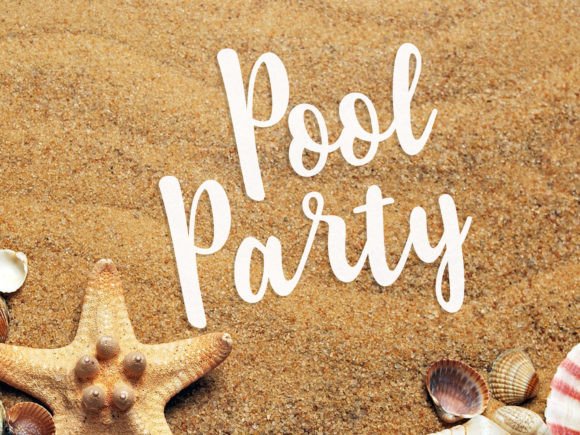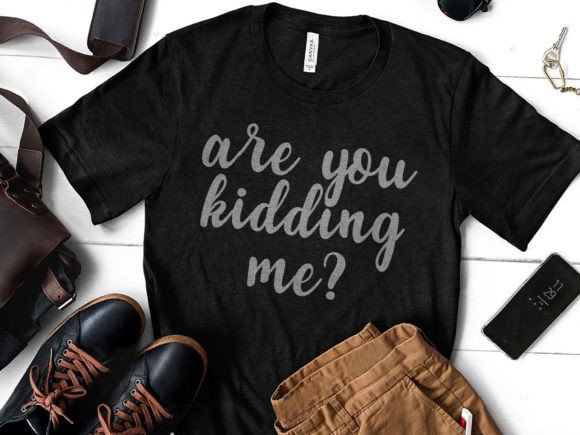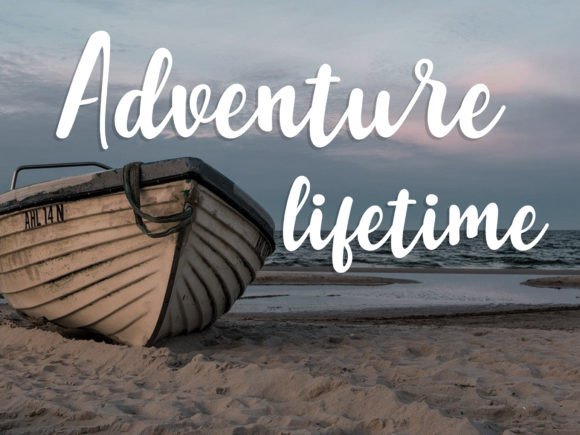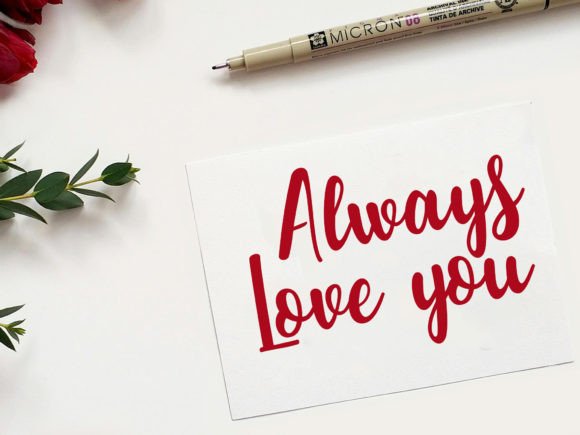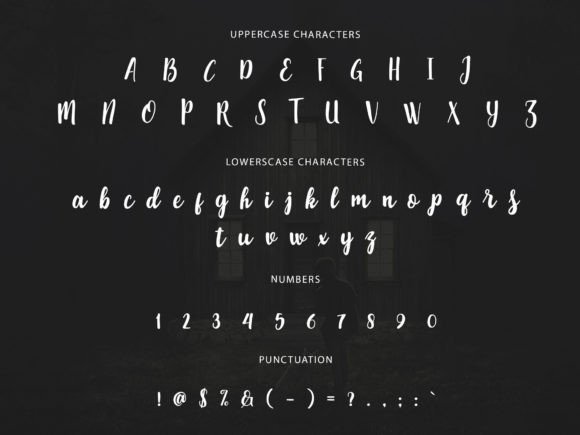
The Moonlit Charm of Evabeta Font: A Designer’s Delight
I’ll never forget the late nights spent working on a luxury event branding project, searching for the perfect font to capture the essence of an elegant evening under the stars. My client wanted a design that exuded sophistication and intimacy, but I was struggling to find a typeface that fit the bill. That’s when I stumbled upon Evabeta Font, and it was love at first sight ✨. In this article, I’ll share my experience with Evabeta, its unique features, and how to make the most of this stunning font in your designs.
A Personal Review of Evabeta Font
- ✨ Fluid, organic strokes that evoke the elegance of personalized handwriting
- ✅ Delicate yet bold lines that create a sense of depth and intrigue
- 💫 Perfect for luxurious evening events, upscale branding, and intimate, nocturnal-themed designs
- 🎨 Highly versatile and adaptable to various design contexts
While Evabeta is an exceptional font, there are a few things to keep in mind ⚠️:
- 🤔 Some characters may appear a bit condensed, which can affect readability at smaller font sizes
- ⚠️ Limited availability of extended language support
The Backstory of Evabeta Font
Evabeta Font was crafted with the intention of capturing the essence of a moonlit night. Its designer aimed to create a typeface that would evoke the elegance and intimacy of a handwritten script, while still maintaining a sense of sophistication and luxury. The result is a font that shines bright in the world of typography 💫.
| What makes Evabeta Font unique? | Evabeta’s fluid, organic strokes and delicate yet bold lines create a sense of depth and intrigue, making it perfect for luxurious and intimate designs. |
| Is Evabeta suitable for body text? | While Evabeta is primarily designed for display purposes, it can be used for body text in certain contexts. However, its readability may be affected at smaller font sizes. |
| Does Evabeta support multiple languages? | Evabeta has limited language support. If you need to use the font for a specific language, it’s best to check with the font’s creator or a reliable typography resource. |